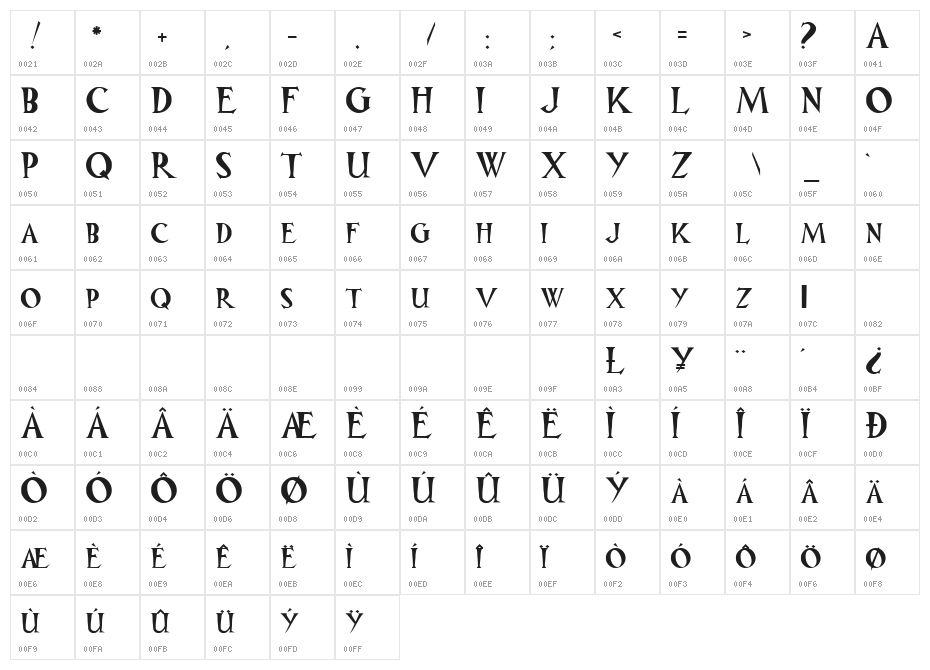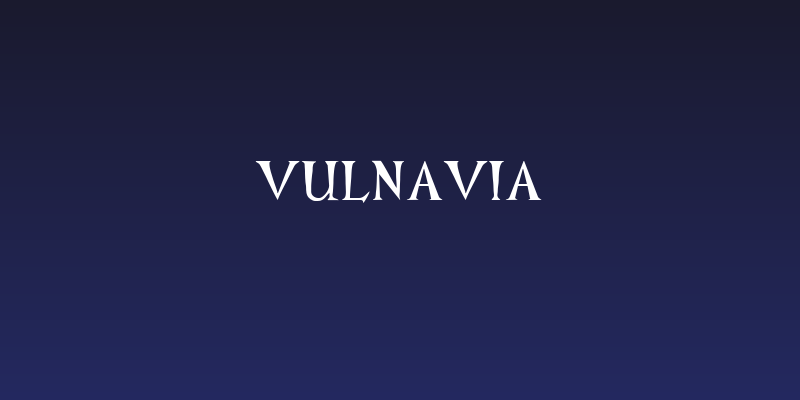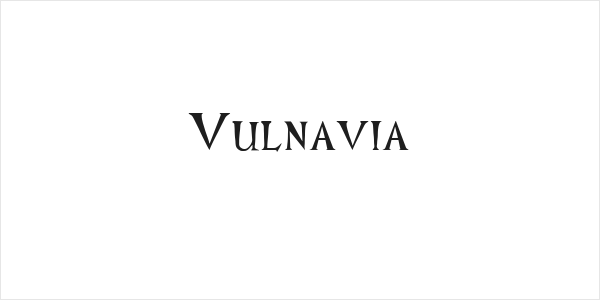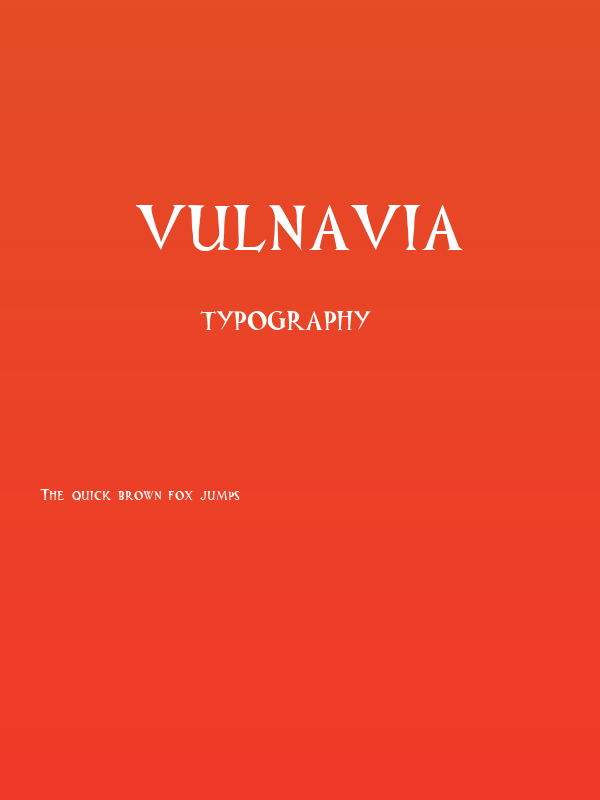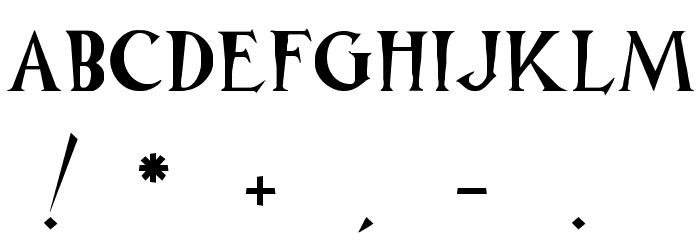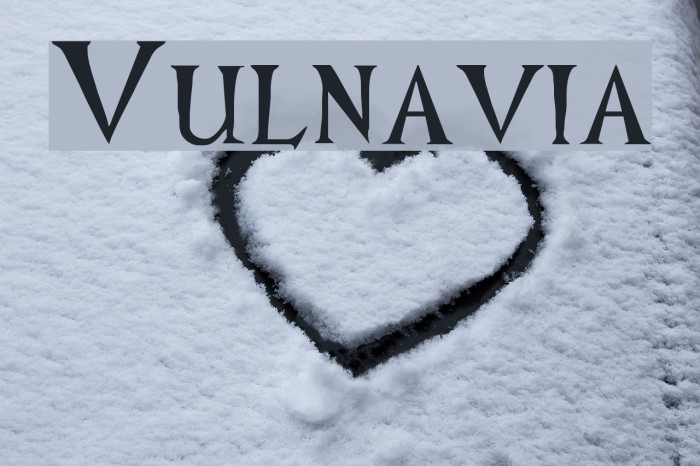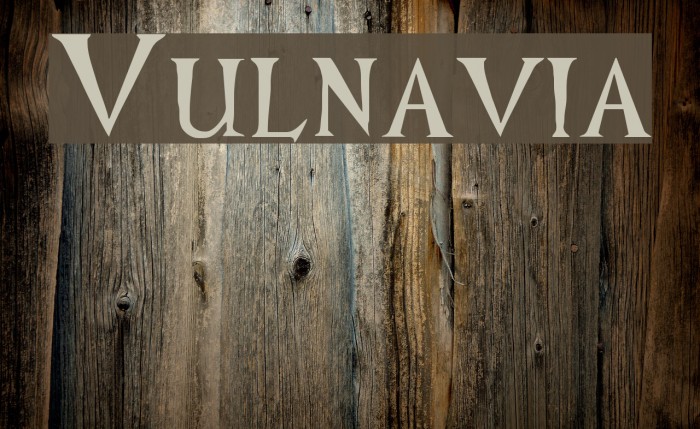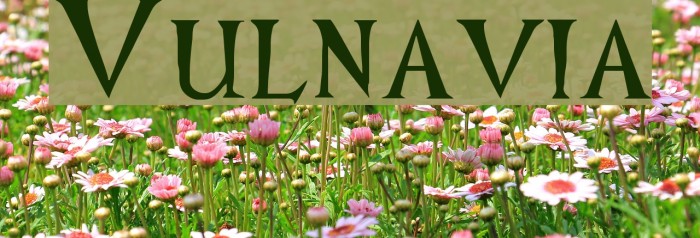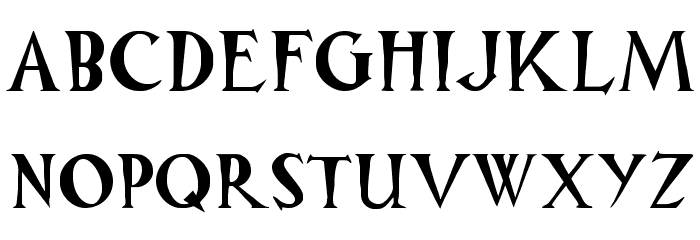
Vulnavia Font
Vulnavia Description
This font features a bold and dramatic style with sharp, angular serifs and a strong presence. The characters exhibit a unique blend of traditional serif elements with a modern twist, characterized by their pointed edges and varying stroke widths. The uppercase letters are particularly striking, with a sense of movement and energy, while the lowercase letters maintain a consistent style that complements the overall design. The numerals and special characters follow the same aesthetic, ensuring a cohesive look across all text elements. This font is ideal for projects that require a bold statement and a touch of elegance.
| Proposed Projects | Perfect for branding, headlines, posters, and any design requiring a bold, elegant touch. |